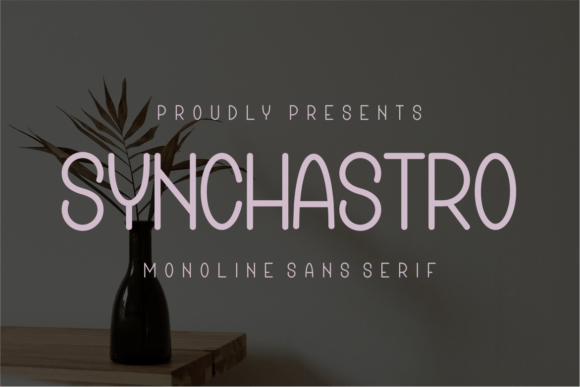
Welcome to the world of Synchastro Font, a fresh and captivating sans serif creation from the masters at Monoletter! This font family is a symphony of style and sophistication, beckoning you to explore its limitless potential. With its clean lines, elegant curves, and a hint of modern flair, Synchastro is a visual masterpiece that transforms words into art.
Immerse yourself in the allure of Synchastro's characters, each meticulously crafted to exude class and elegance. Whether you're designing logos that demand attention, branding projects that radiate professionalism, or invitations that evoke a sense of timeless beauty, Synchastro is your perfect companion. Its versatility extends to stationery, wedding designs, and social media posts, adding a touch of magic to every project you undertake.
Experience the allure of Synchastro's seamless flow, guiding readers through your content with effortless grace. Its letterforms dance across the page, creating a visual symphony that captivates and engages. Let Synchastro elevate your designs, adding a touch of sophistication that sets you apart from the ordinary.
With Synchastro, your designs will transcend the mundane, embracing a realm of creativity and innovation. From magazine covers that leap off the shelves to posters that command attention, Synchastro is your gateway to a world of visual storytelling. Its charm and elegance will leave a lasting impression, ensuring your message resonates with your audience.
Unlock the power of Synchastro today and embark on a typographic journey like no other. Discover the endless possibilities that await you as you wield this font family's magic. Let Synchastro be your muse, inspiring you to create designs that ignite imaginations and leave an indelible mark on the world.